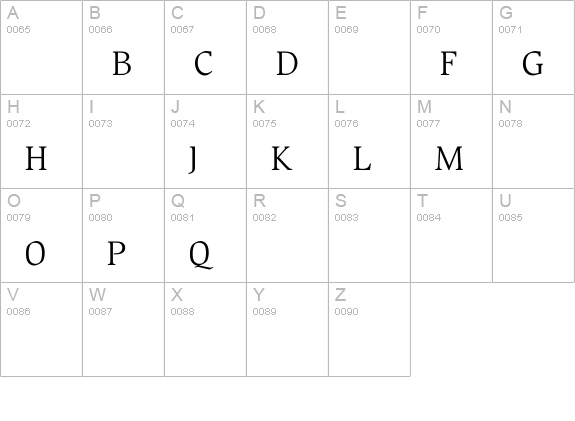
BeckenhamLight is a sophisticated and elegant font that exudes a sense of modernity and style. With its clean lines and delicate curves, this font is perfect for adding a touch of sophistication to any project. Its sleek and contemporary design makes it ideal for a wide range of applications, from branding to editorial design. What makes BeckenhamLight even more appealing is the fact that it is available for free download at FontsMarket.com. This means that you can easily access this stunning font and use it in your projects without any cost. Don't miss out on the opportunity to enhance your designs with BeckenhamLight – download it for free today!